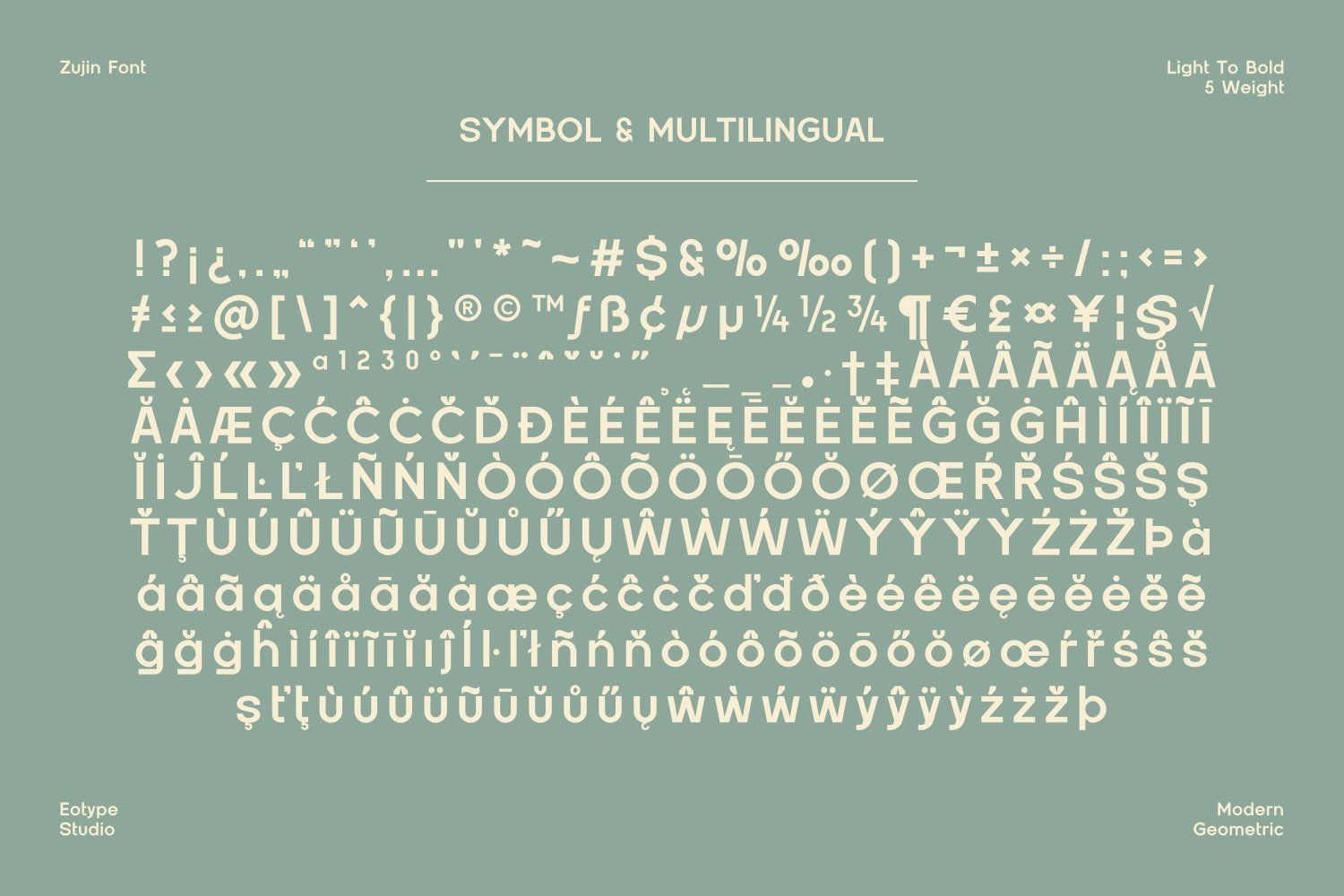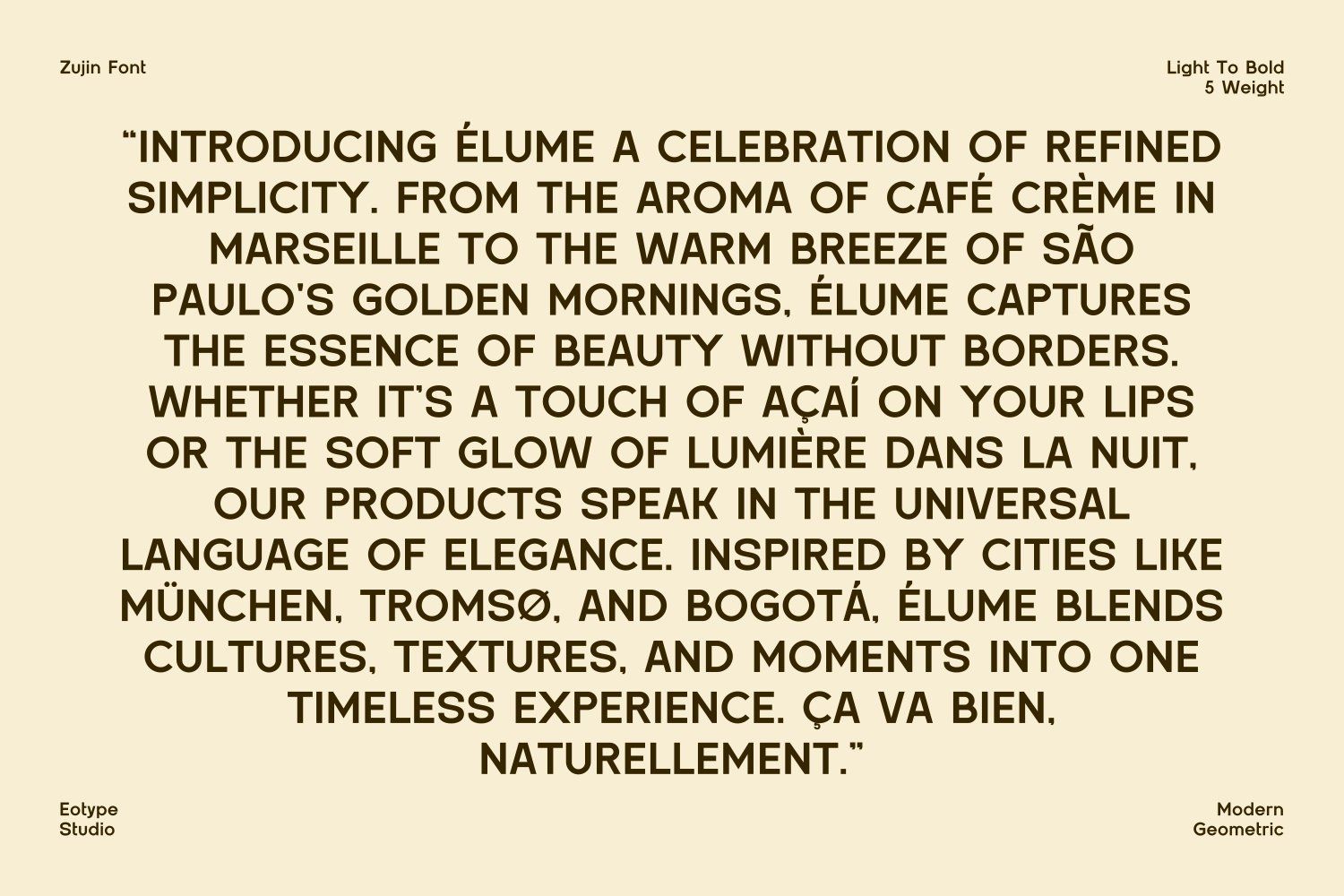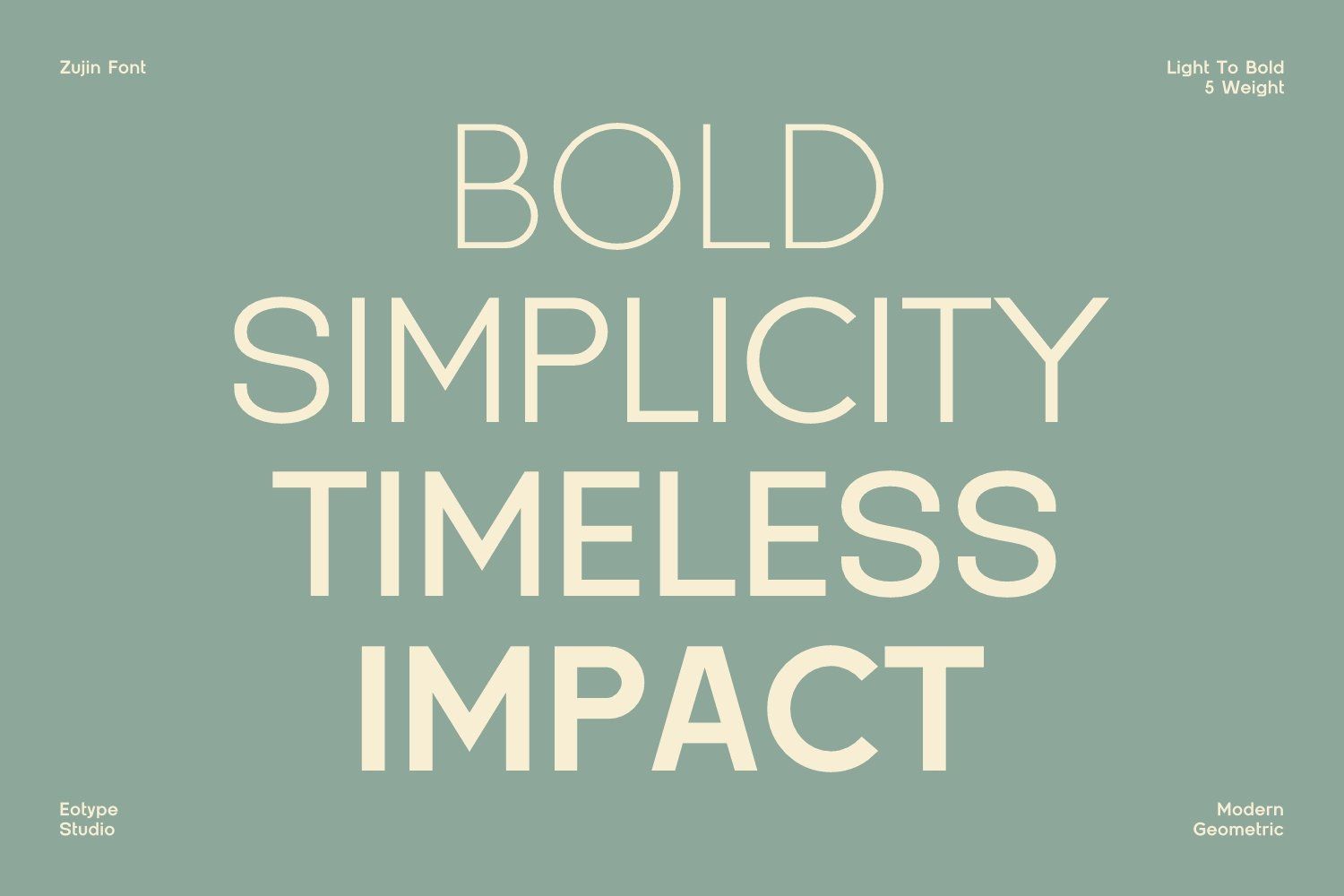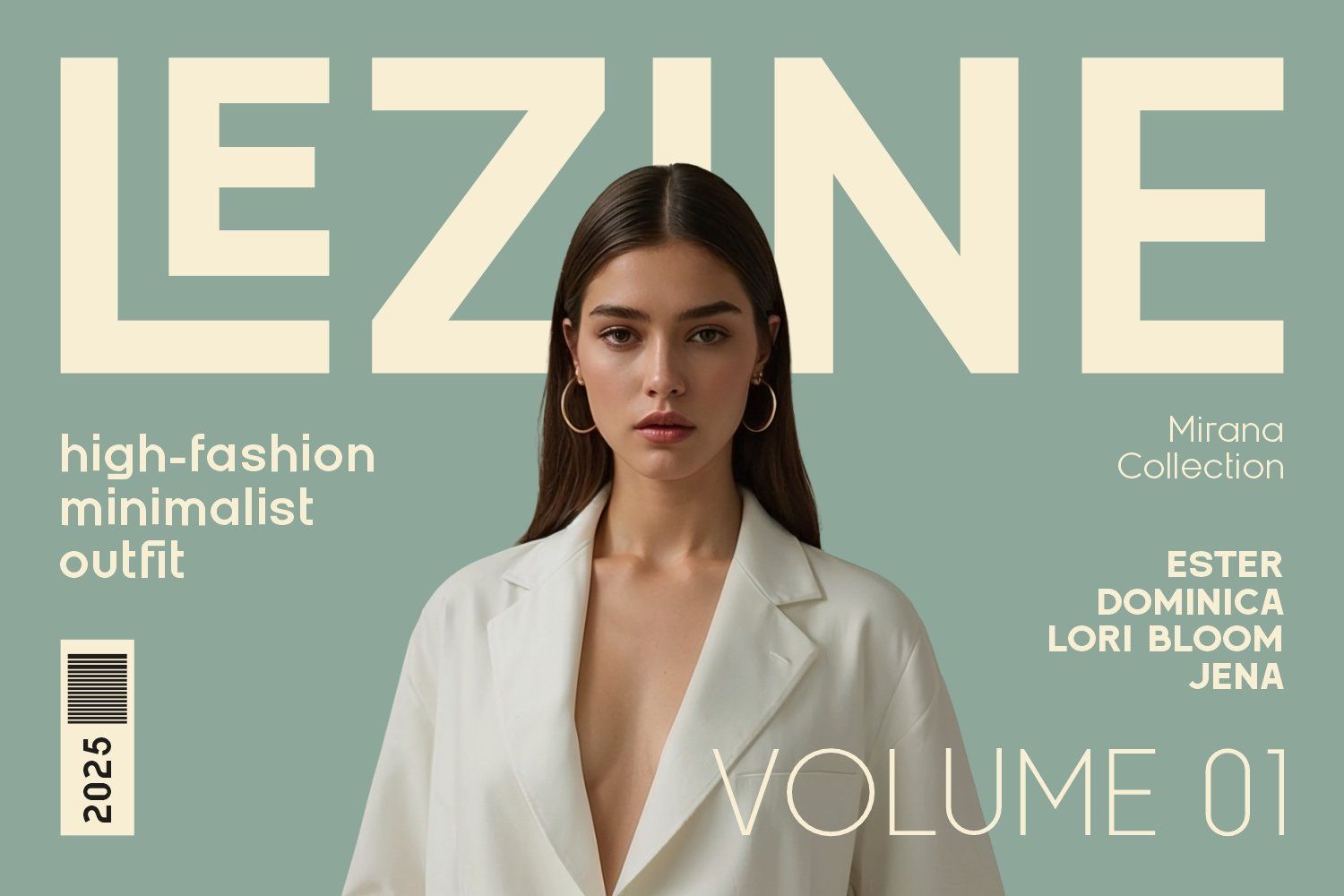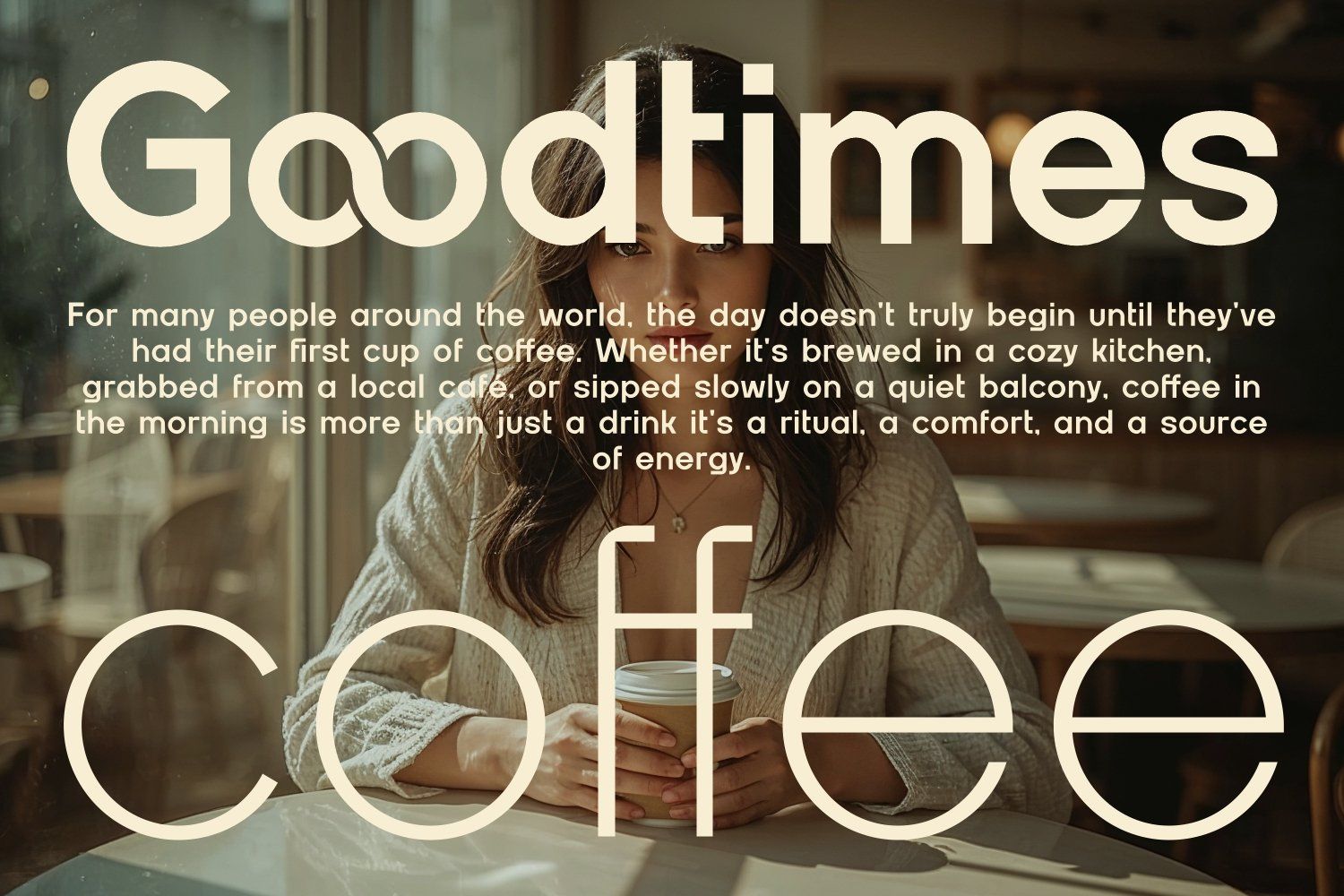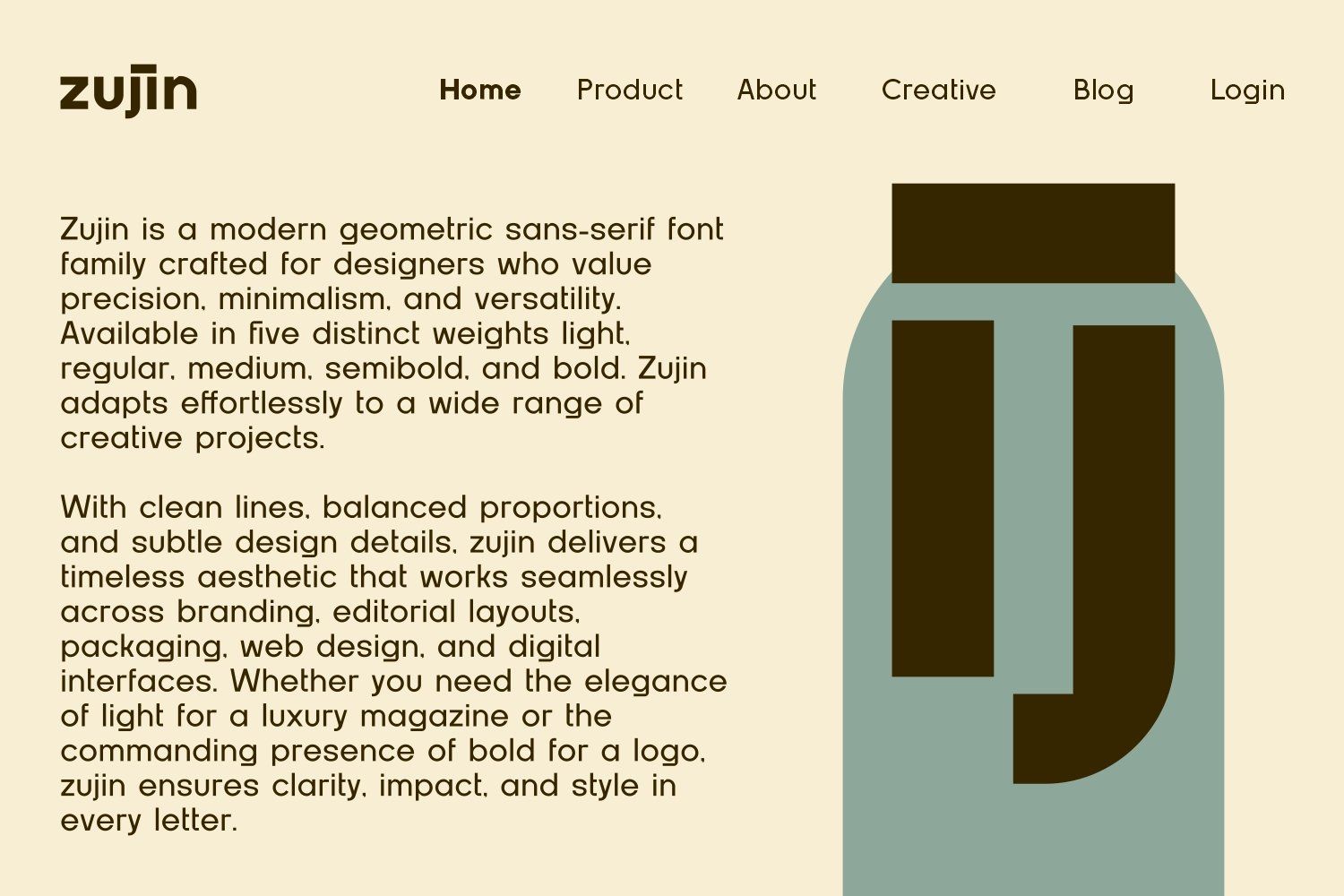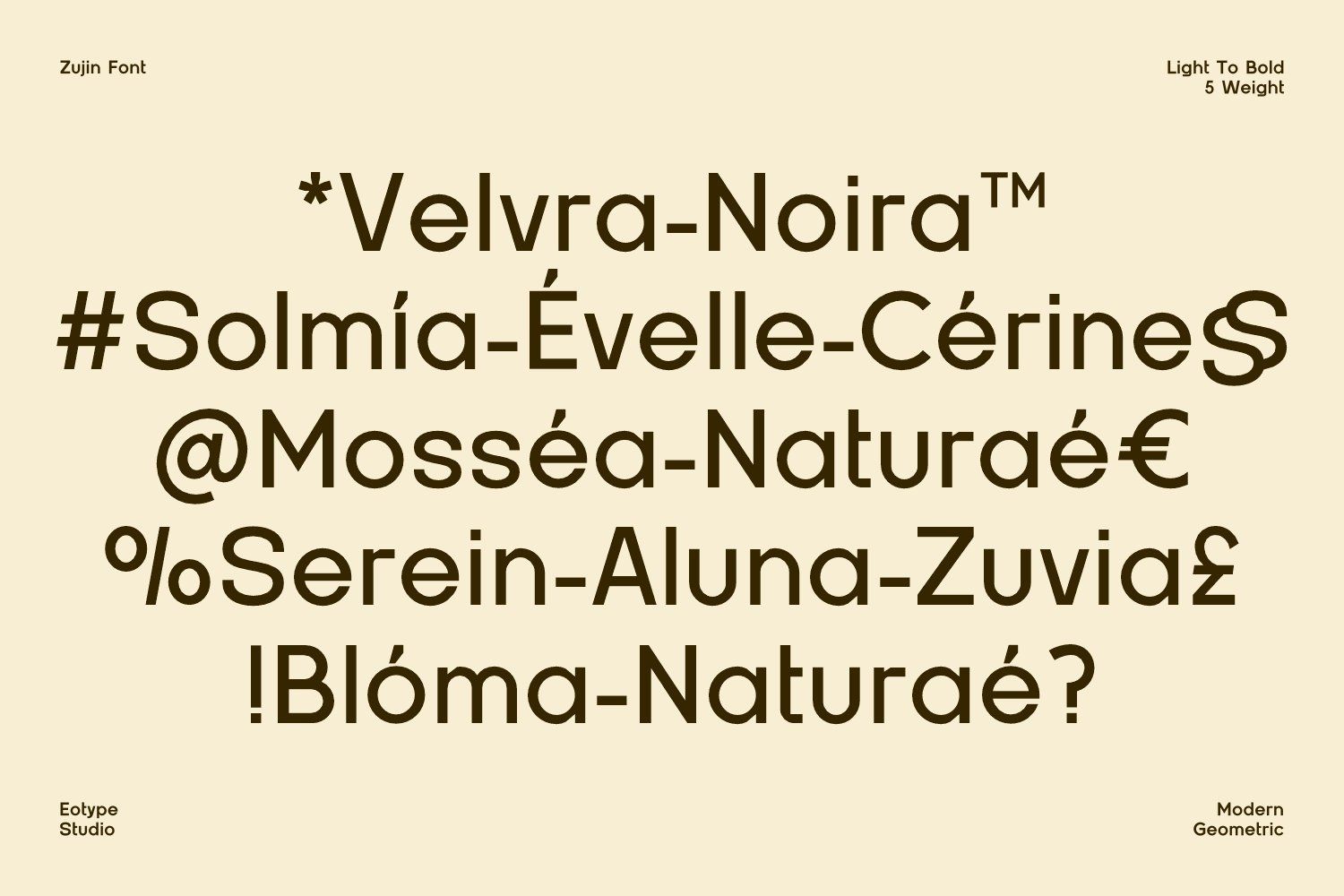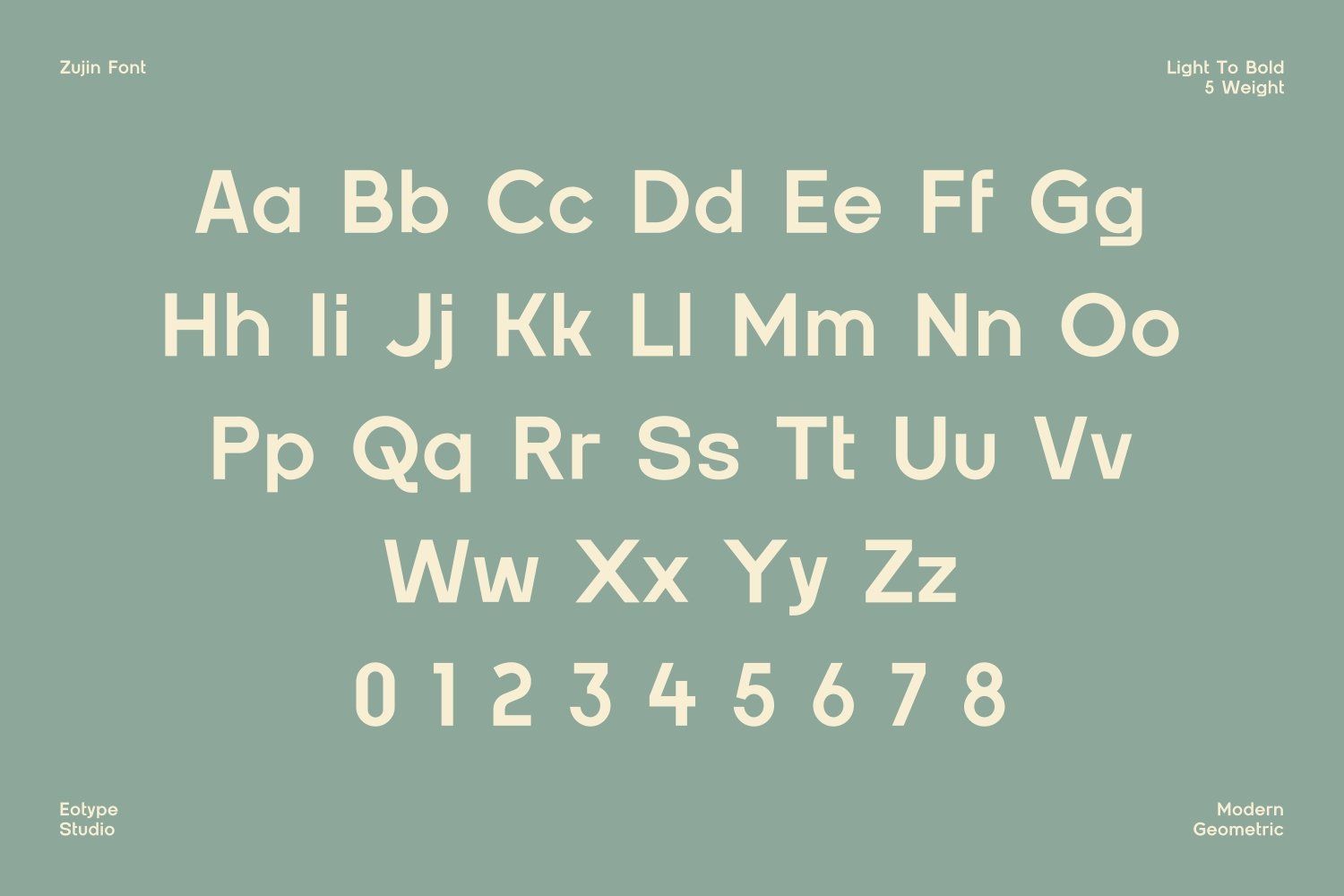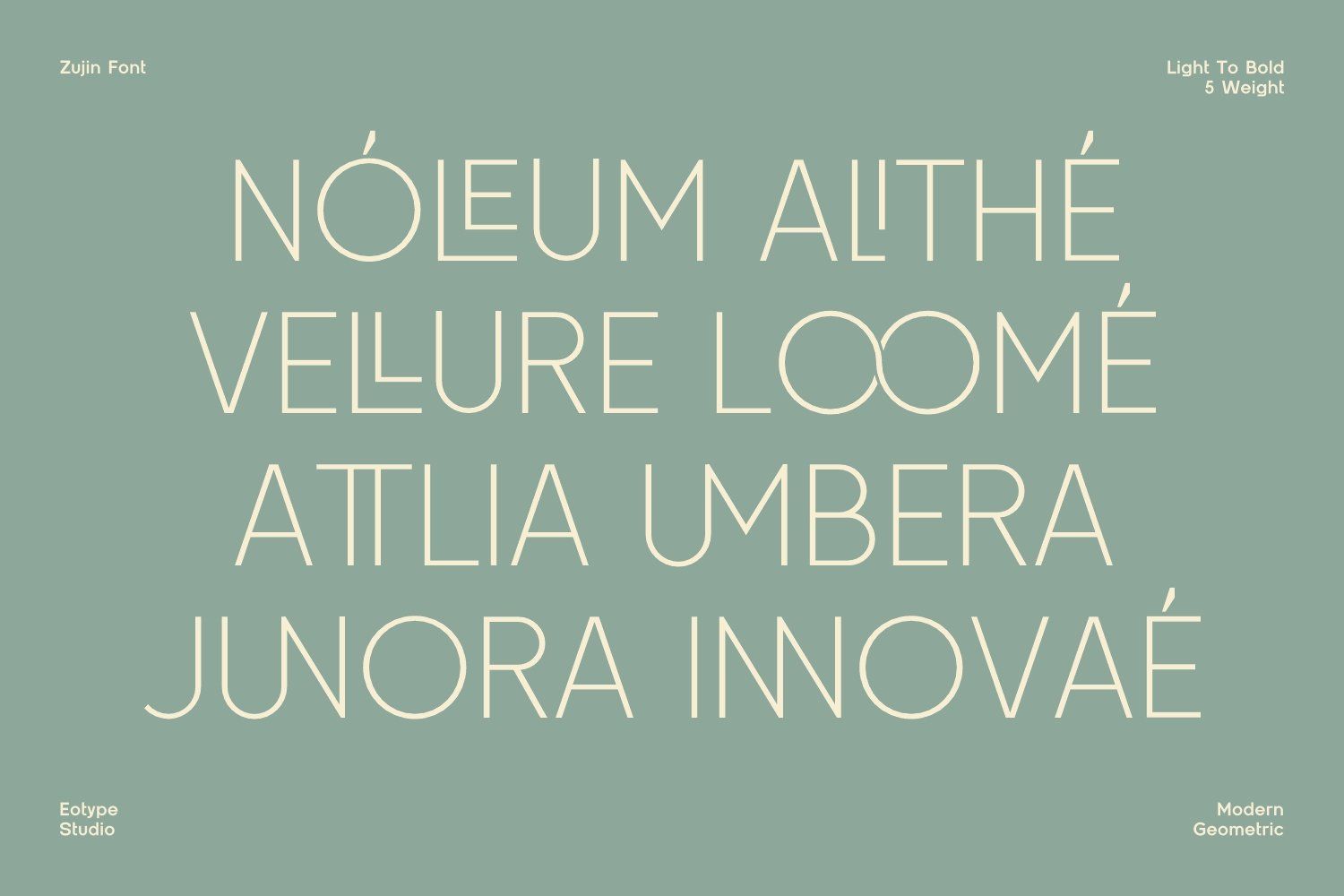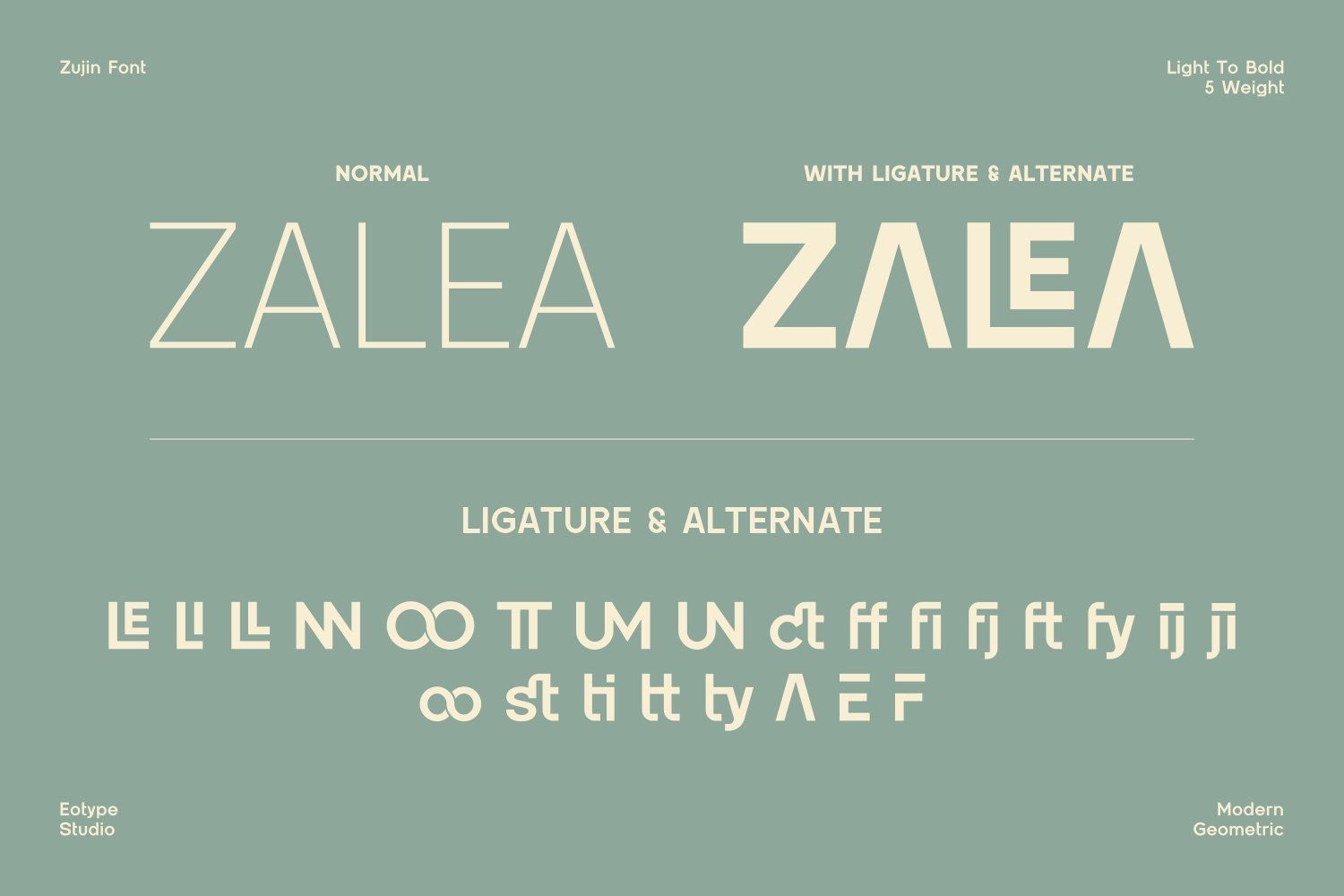
Zujin is a bold, modern sans-serif that blends geometric precision with minimalist elegance. Available in five versatile weights Light, Regular, Medium, Semibold, and Bold. Zujin adapts effortlessly to a wide range of design needs. Its clean shapes, confident weight distribution, and subtle design details make it perfect for branding, editorial layouts, and digital interfaces. With exceptional clarity and timeless style, Zujin delivers impact in every letter.